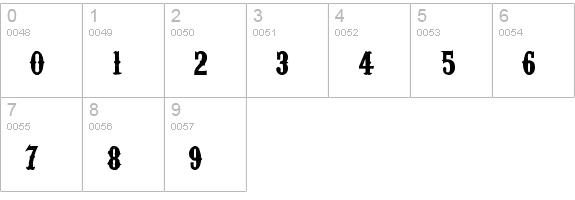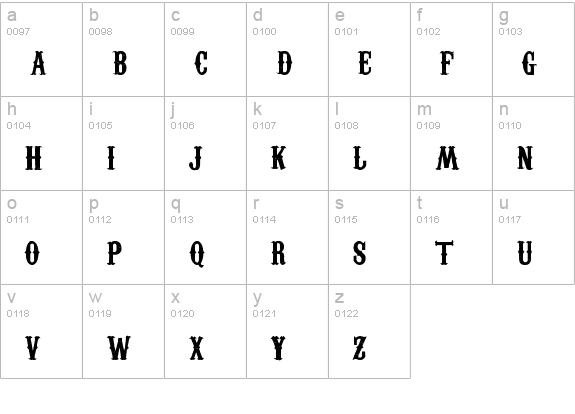
Carnivalee Freakshow Font Details
Carnivalee Freakshow font is a whimsical and quirky typeface that exudes a sense of mystery and intrigue. Inspired by vintage circus posters and sideshow banners, this font features exaggerated strokes and playful letterforms that bring to mind the excitement of a carnival. Its unique design makes it perfect for adding a touch of eccentricity to your projects, whether you're creating invitations, posters, or branding materials. The best part? Carnivalee Freakshow font is available for free download at FontsMarket.com. Simply head over to the website and get your hands on this captivating font to add a touch of the extraordinary to your designs. Let your creativity run wild with Carnivalee Freakshow font and bring a sense of wonder and excitement to your next project.